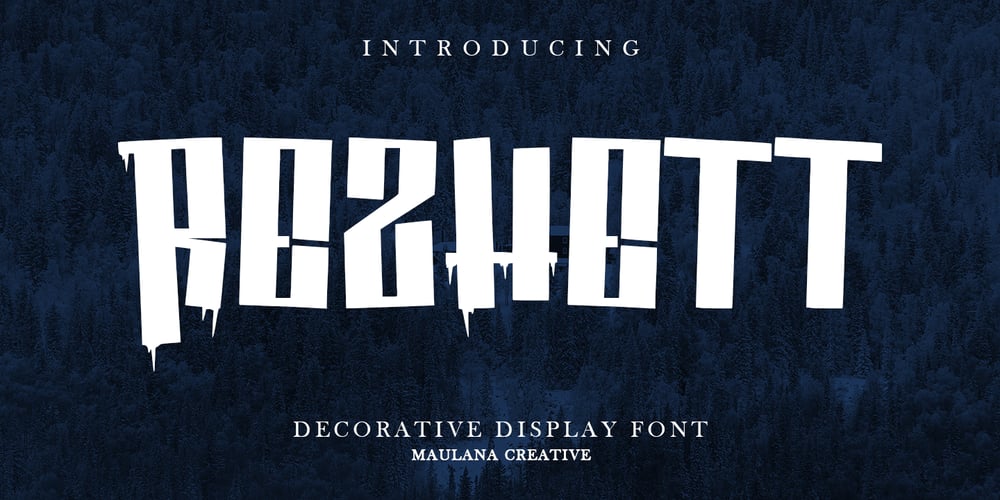
MC Rezhett
MC Rezhett font
MC Rezhett Font Family was designed by Gilang Maulana and published by Maulana Creative. MC Rezhett contains 1 styles and family package options. Rezhett decorative display font. Heavy stroke, vintage character with alternates. To give you an extra creative work. Rezhett display font support multilingual language. This font is good for logo design, Social media, Movie Titles, Books Titles, a short text even a long text letter and good for your secondary text font with script or serif. Make a stunning work with Rezhett font. Cheers, Maulana Creative